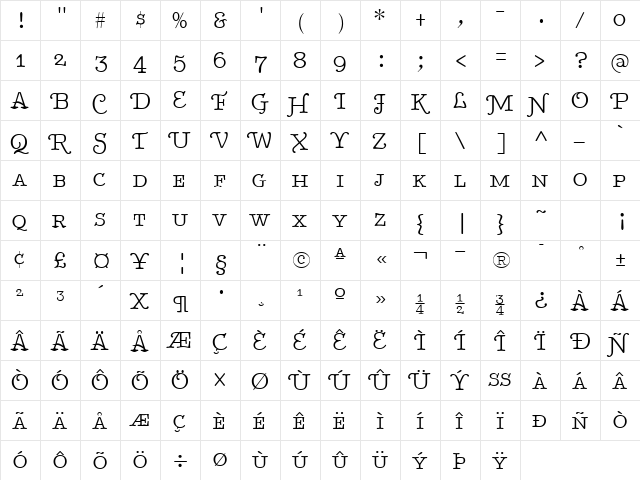
BetterTypeRiteSpec Regular
Design Context for BetterTypeRiteSpec Typeface
BetterTypeRiteSpec is a composed and adaptable typeface that performs quietly and consistently across a wide range of design contexts.